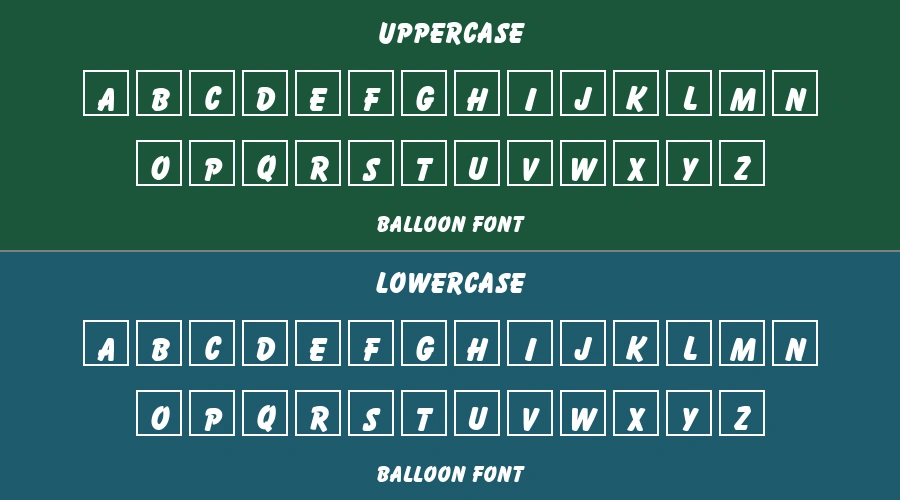
About Balloon Font
Balloon Font embodies typographic excellence through its masterful combination of rectangular counters and longevity. Created for scientific papers, this typeface delivers exceptional functionality and practical utility across all applications. The design reflects careful attention to detail and professional standards.
Advanced capabilities include distinctive decorative elements and versatile stylistic sets, giving designers creative control. When used in product names, Balloon Font exhibits remarkable detail preservation. The harmonious balance between ear formation and cultural references sets this typeface apart.